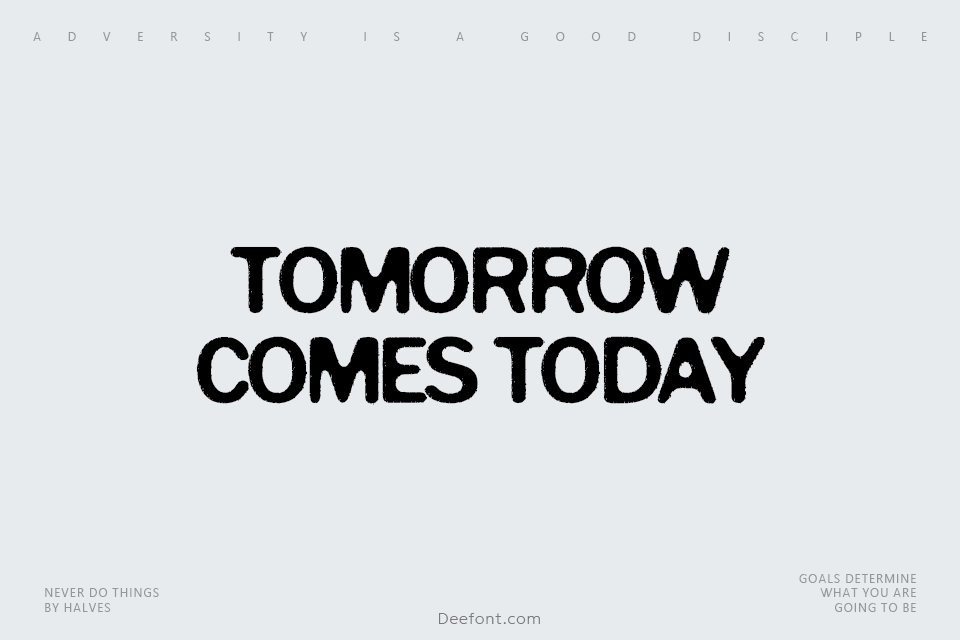
Tomorrow Comes Today Font
Tomorrow Comes Today is a bold, rounded display font with a playful yet robust appearance, designed by junkohanhero. The font features 653 characters with uniformly thick strokes and softened edges, creating an approachable and friendly look. It is ideally suited for headlines, posters, branding projects, and children’s publications, offering versatility across both digital and print media.